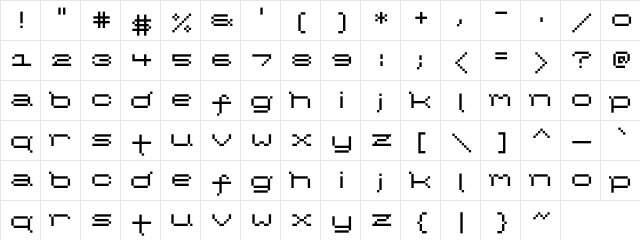
ADemjayls10 Regular
Design Context for ADemjayls10 Typeface
ADemjayls10 offers clean, dependable letterforms without strong stylistic allegiance, making it a practical choice for designers who need flexibility.